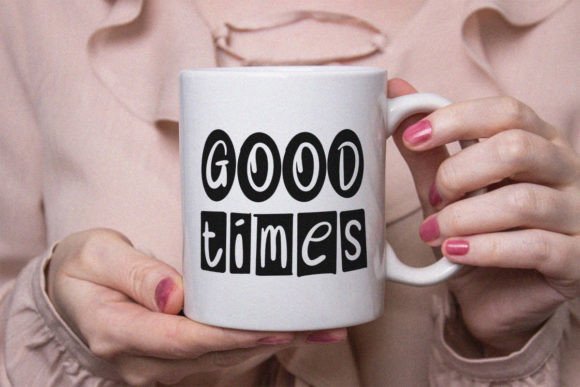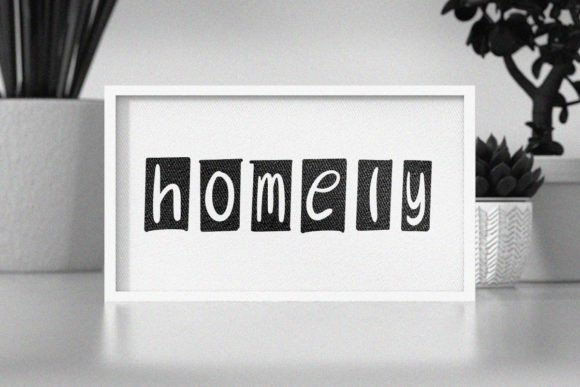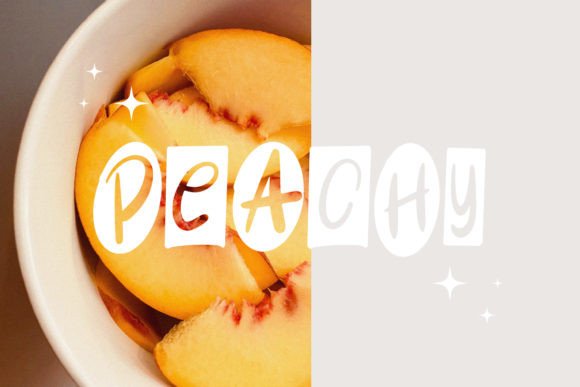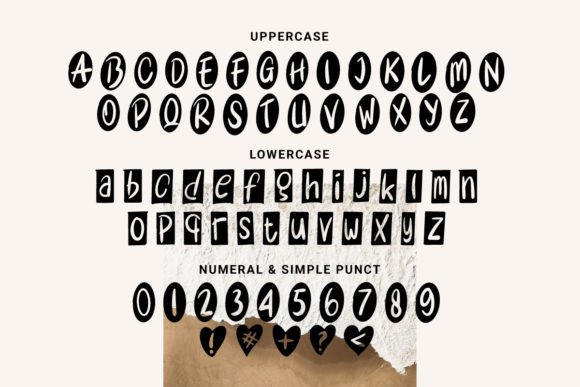
Unleash the Magic: Exploring the Black Magic Font
Are you on the hunt for a font that adds a dash of quirkiness and playfulness to your designs? Look no further than the Black Magic Font. This fun and cool display font is making waves in the design community, and for good reason. Its bold, quirky, and playful style makes it perfect for a wide variety of contexts, from crafting and DIY projects to digital designs and marketing materials.
The Allure of Black Magic Font
So, what sets the Black Magic Font apart from other display fonts on the market? For starters, its unique blend of bold and whimsical elements makes it a standout. The font’s playful curves and lines evoke a sense of magic and wonder, making it perfect for projects that require a touch of personality. Whether you’re designing a logo, creating a social media graphic, or crafting a handmade card, the Black Magic Font is sure to add a dash of excitement and energy to your work.
Key Features of Black Magic Font
- Bold and Quirky: The Black Magic Font is designed to make a statement. Its bold lines and quirky curves make it perfect for headlines, titles, and other display text.
- Playful and Fun: This font is all about having fun. Its playful style makes it perfect for projects that require a lighthearted touch, such as crafting and DIY projects.
- Versatile: Despite its bold and quirky style, the Black Magic Font is surprisingly versatile. It can be used in a wide range of contexts, from digital designs to print materials.
- Easy to Read: Despite its bold style, the Black Magic Font is surprisingly easy to read. This makes it perfect for use in body text, as well as display text.
Uses for Black Magic Font
So, what can you use the Black Magic Font for? The possibilities are endless. Here are a few ideas to get you started:
- Crafting and DIY Projects: The Black Magic Font is perfect for crafting and DIY projects, such as handmade cards, scrapbooking, and other paper crafts.
- Digital Designs: This font is also perfect for digital designs, such as social media graphics, blog posts, and other online content.
- Marketing Materials: The Black Magic Font can add a touch of personality to your marketing materials, such as brochures, flyers, and business cards.
- Logos and Branding: This font’s unique style makes it perfect for use in logos and branding materials.
Tips for Using Black Magic Font
Here are a few tips for getting the most out of the Black Magic Font:
- Use it Sparingly: While the Black Magic Font is bold and playful, it can be overwhelming if used too much. Use it sparingly to add a touch of personality to your designs.
- Pair it with Other Fonts: The Black Magic Font pairs well with a variety of other fonts. Try pairing it with a clean, sans-serif font for a bold and modern look.
- Experiment with Colors: The Black Magic Font looks great in a variety of colors. Experiment with different colors to find the one that works best for your design.
In conclusion, the Black Magic Font is a fun and cool display font that’s perfect for designers and crafters looking to add a dash of personality to their work. Its bold, quirky, and playful style makes it perfect for a wide variety of contexts, from crafting and DIY projects to digital designs and marketing materials. With its versatility, ease of use, and unique style, the Black Magic Font is sure to become a favorite in your design arsenal.